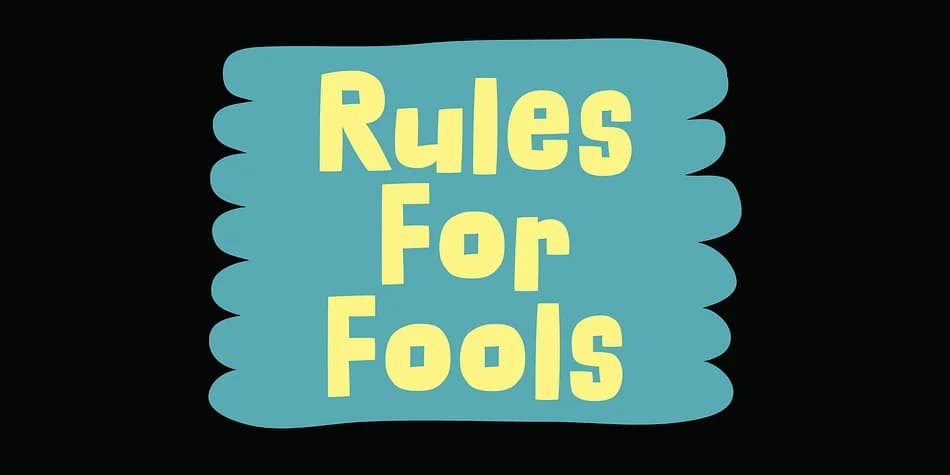
1 / 8About Rules For Fools Font
Rules For Fools by Bogstav is a bold, cheeky decorative typeface built for projects demanding visual personality and playful energy in every letter. With bouncy letterforms and confident character, this font excels in applications where text needs to command attention and inject genuine fun into layouts. From eye-catching music festival promotional posters to vintage-inspired band merchandise designs, Rules For Fools brings undeniable movement and charm to any composition it graces. The typeface works beautifully for comic book lettering, theatrical event signage, and vibrant social media graphics celebrating bold self-expression and creative confidence. Its distinctive presence shines particularly well in playful packaging design, whether labeling craft beverages, novelty product boxes, or artisanal goods seeking authentic personality beyond convention. When cheerful greeting card designs or retro diner-inspired brand identities call for character and warmth, this font delivers with genuine style and visual impact. Rules For Fools maintains readable clarity while providing unmistakable personality across all sizes and applications throughout your design work. Whether you're designing eye-catching posters, memorable packaging, or lively brand identities for ventures that celebrate joy and creativity, this typeface adds genuine creative spark to every project. Find this bold, cheeky font on Creative Fabrica and bring playful character to your next design.
Rules For Fools Font is a decorative font that shines as a display or heading face. Pair it with a clean sans-serif or serif font for body text β the contrast creates a clear hierarchy while the two styles stay balanced and easy to read.
Rules For Fools Font
by Bogstav